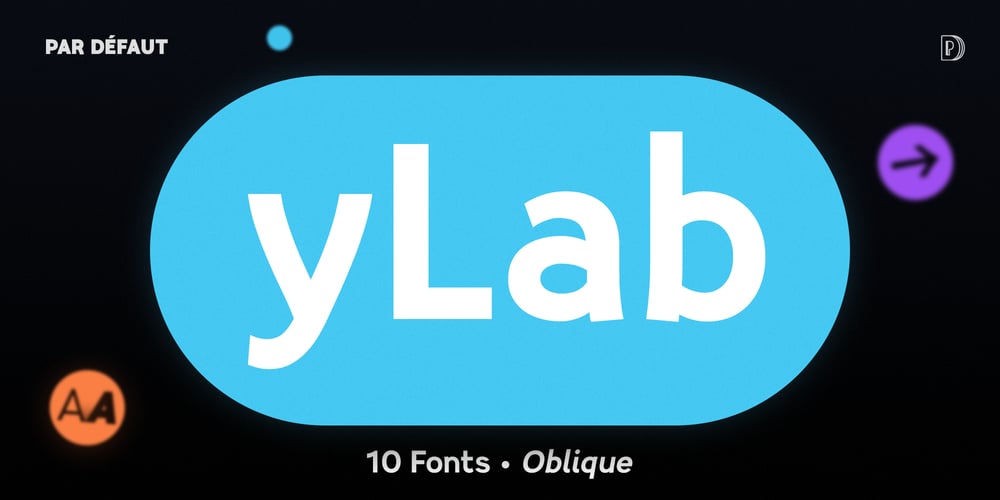
YLab Font Family was designed by Nathanaël Dorange and published by Par Défaut. YLab contains 10 styles and family package options. yLab is geometric typeface compose of 10 fonts (5 weights and oblique declination)Perfect for titles and text, yLab supports many languages (Latin pro..).11 OpenType Features (Alternative; Fraction; Numerator; Denominator; Superior; Inferior; Tabular figure; Ordinals; Discretionary Ligature; Stylistic Set; Case Sensitive Forms).• Ordinal feature includes the Latin alphabet (Uppercase & Lowercase).• Five Stylistic set for “a”, “g”, “i” and “l”, includes accents.• Discretionary Ligature includes “AE”, “IJ”, “OE”, available in lowercase.• Contextual Alternate includes ligatures for arrows : <- -> ^| v| <-> v^| < /> > Add parentheses around period, numbers or arrows, add n or d for numerator, denominator. Add n, d or +, for numerator, denominator or case arrows. All Case sensitive characters become after the uppercase and number.